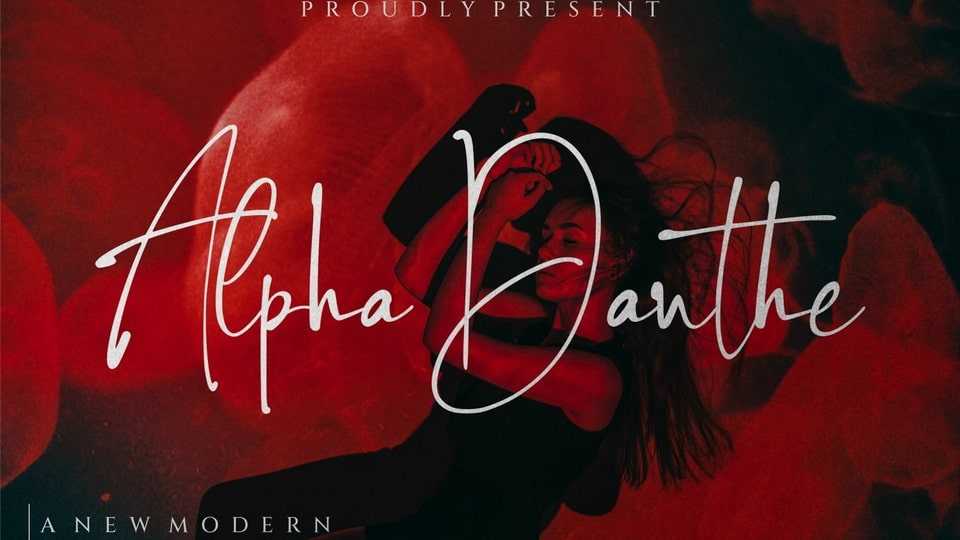
Download Alpha Danthe font, a handwritten signature script with a natural and stylish flow. Alpha Danthe is perfect for many different projects such as logos and branding, invitation, wedding designs, social media posts or anything.